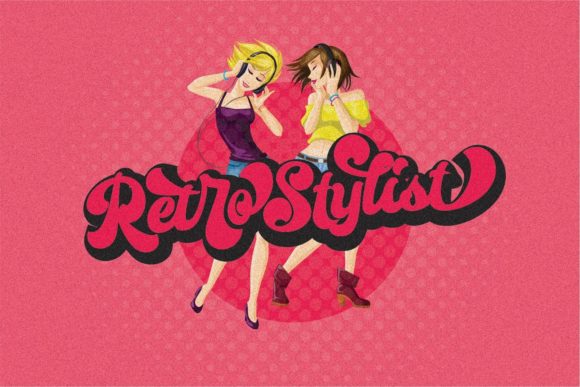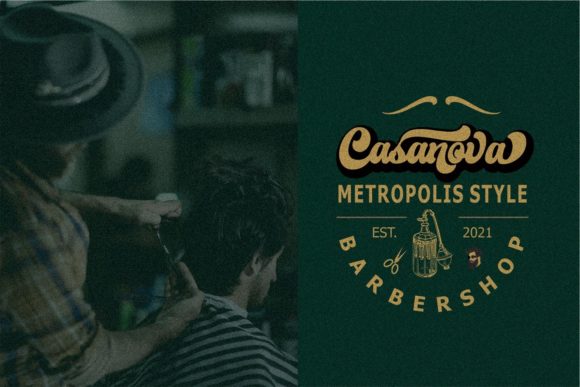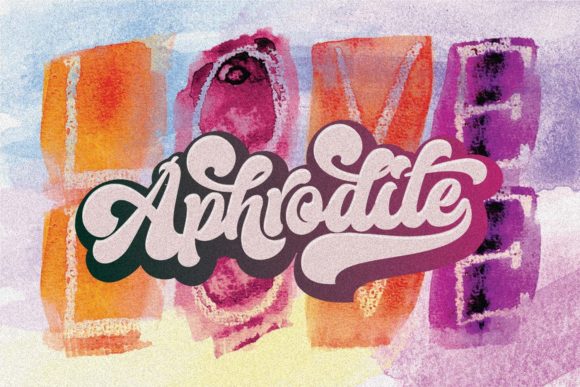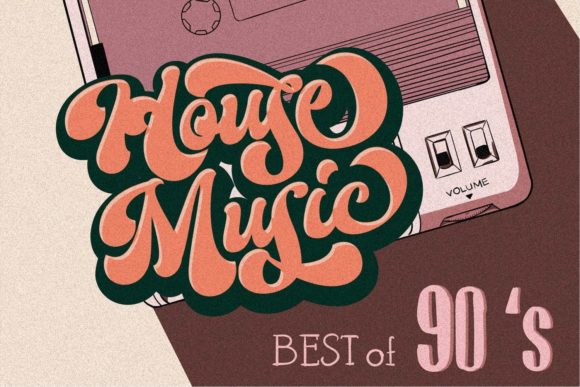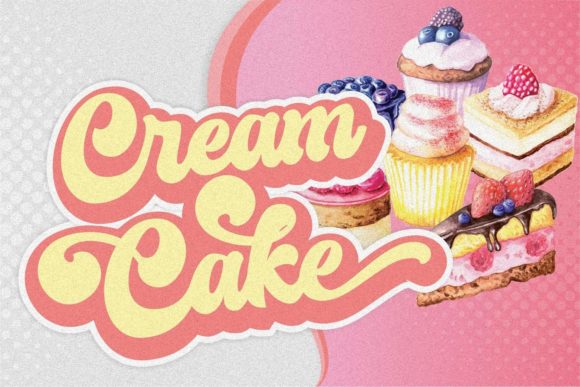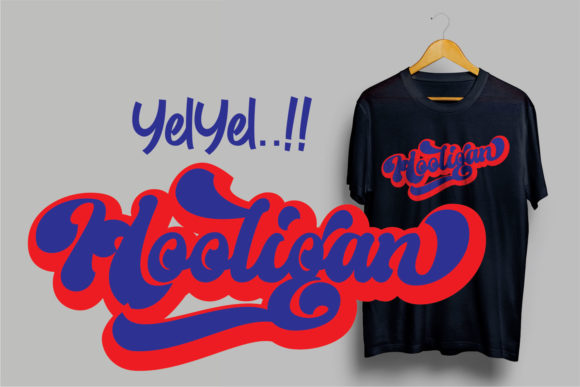
Creamer Font: Elevate Your Designs with a Stylish and Bold Handwritten Touch
Are you looking for a font that can add a touch of sophistication and elegance to your designs? Look no further than the Creamer Font. This gorgeous and bold handwritten font is crafted to give your headlines and logotype projects a stylish touch that’s sure to turn heads. With its strong, confident, and dynamic appearance, Creamer is the perfect choice for designers and crafters who want to add a little extra something to their work.
The Characteristics of Creamer Font
Creamer Font is a beautifully designed handwritten font that’s perfect for a wide range of design projects. Here are some of its key characteristics:
- Bold and stylish: Creamer Font is a bold and stylish font that’s perfect for headlines, logotypes, and other design projects where you want to make a statement.
- Handwritten with love: This font is carefully crafted by hand to give it a unique and personal touch that’s sure to add a touch of warmth to your designs.
- Nostalgic character: With its classic and timeless design, Creamer Font is sure to add a touch of nostalgic character to your designs. Whether you’re creating a vintage-inspired poster or a modern logo, this font is sure to fit the bill.
Why Choose Creamer Font?
So why choose Creamer Font for your design projects? Here are just a few reasons:
- Versatility: Creamer Font is a versatile font that can be used for a wide range of design projects, from posters and flyers to logos and branding materials.
- Unique style: Creamer Font has a unique and stylish design that’s sure to set your designs apart from the crowd. Whether you’re creating a bold and eye-catching headline or a subtle and elegant logo, this font is sure to make a statement.
How to Use Creamer Font
Using Creamer Font is easy. Here are a few tips to get you started:
- Pair it with other fonts: Creamer Font pairs well with a wide range of other fonts, from simple sans serifs to elegant scripts. Experiment with different pairings to find the one that works best for your design.
- Experiment with colors: Creamer Font looks great in a wide range of colors, from bold and bright to subtle and muted. Experiment with different colors to find the one that works best for your design.
- Use it for headlines: Creamer Font is perfect for headlines and titles, where its bold and stylish design can really make an impact.
- Add some swashes: With its PUA encoding, Creamer Font comes with a range of swashes and glyphs that you can use to add some extra flair to your designs.